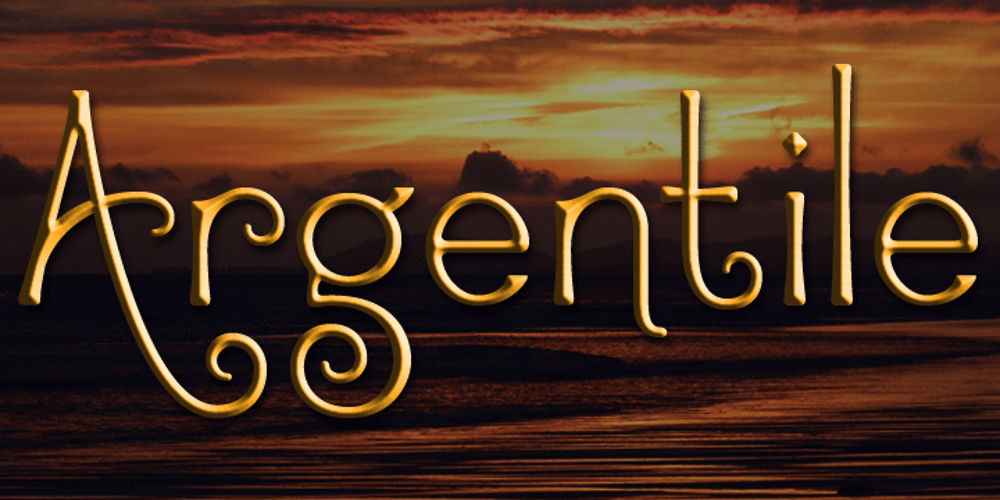
Argentile
Argentile Font Family was designed by Tanya Davis and published by Scrowleyfonts. Argentile contains 2 styles and family package options. Argentile is a stylish, swirling, magical font with an organic, fairytale feel. Argentile is ideal for any project involving elves, goblins, wizards or suchlike. It includes contextual alternates for characters with swash elements or extravagant ascenders and descenders to avoid overlap.